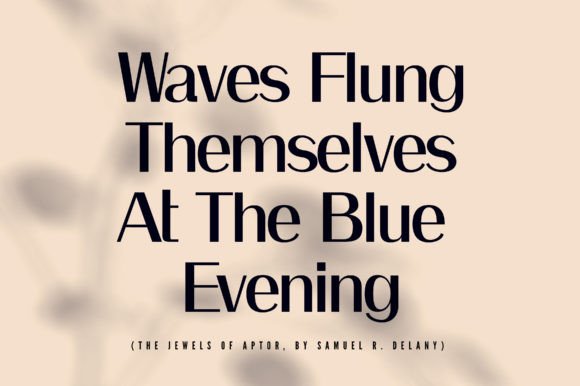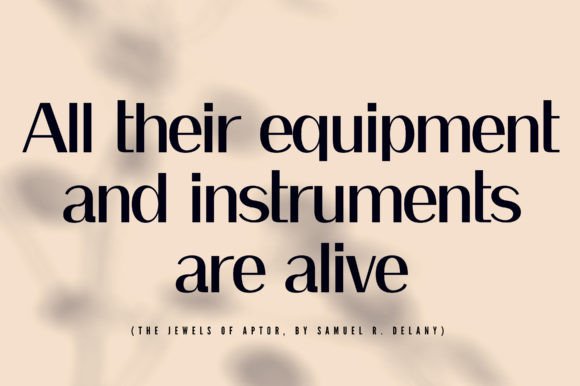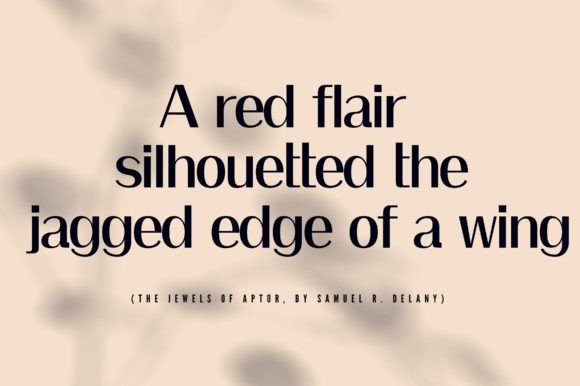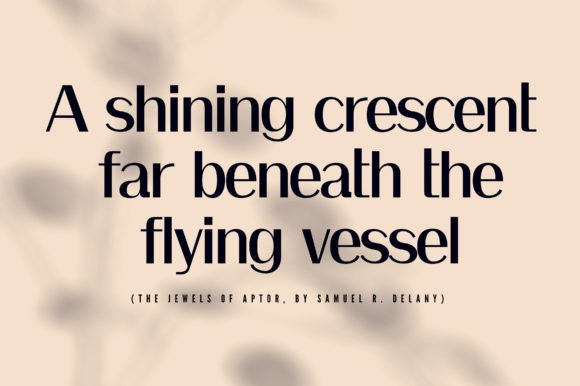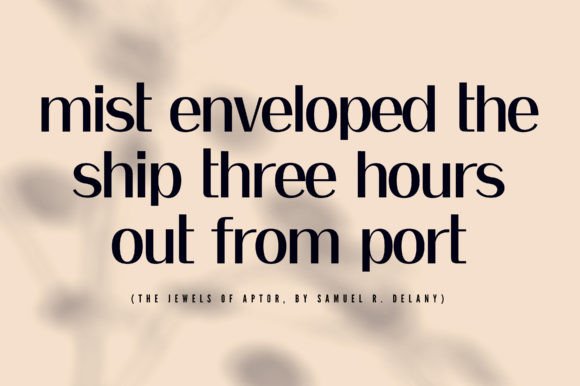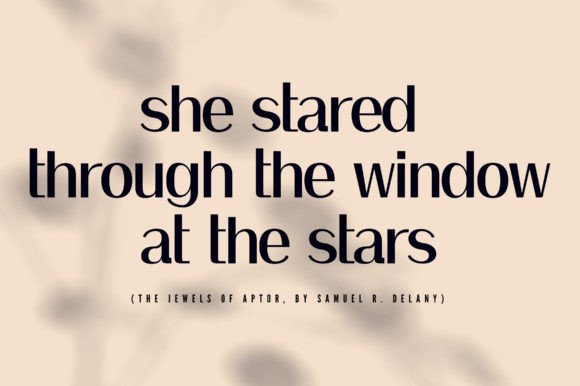
Introducing Camila: The Epitome of Chic, Elegance, and Minimalism in Typography
In the world of typography, few fonts have managed to capture the essence of sophistication and elegance as effortlessly as Camila. This stunning sans-serif font has been meticulously crafted to embody a sense of refined sophistication that is sure to elevate any design project. With its clean lines, simple yet elegant shapes, and attention to detail, Camila is the perfect choice for designers, artists, and creatives alike.
A Font with Endless Creative Possibilities
One of the standout features of Camila is its extensive range of glyphs. With over 604 beautifully designed glyphs, this font offers a wide range of creative possibilities, making it an ideal choice for designers who want to add a touch of elegance and sophistication to their work. Whether you’re creating a logo, a brochure, or a website, Camila has the versatility to adapt to any design style or theme.
Multi-Lingual Support for Global Designers
Camila is designed with versatility in mind, which is why it offers multi-lingual support. Whether you’re creating designs in English, Spanish, French, or any other language, Camila will seamlessly integrate into your project and add a touch of elegance and sophistication that is hard to match. This feature makes Camila an excellent choice for designers who work with clients from diverse linguistic and cultural backgrounds.
The Beauty of Minimalism
The minimalist design of Camila is what truly sets it apart. Every letter has been carefully crafted with the utmost attention to detail, resulting in a font that is both beautiful and functional. The clean lines and simple yet elegant shapes make it perfect for a wide range of applications, from branding and advertising to packaging and digital media.
Why Choose Camila?
So, why choose Camila over other fonts? Here are just a few reasons:
- Unique and distinctive design: Camila’s minimalist design makes it stand out from other fonts, ensuring that your designs will be instantly recognizable.
- Versatility: With multi-lingual support and over 604 glyphs, Camila can be used for a wide range of design projects.
- Elegance and sophistication: Camila adds a touch of refinement and luxury to any design, making it perfect for high-end brands and creatives.
- Easy to read: The clean lines and simple shapes of Camila make it easy to read, even at small font sizes.
How to Use Camila in Your Designs
Using Camila in your designs is easy. Here are a few tips to get you started:
- Pair it with bold fonts: Camila’s minimalist design makes it a great choice for pairing with bold fonts to create visual interest.
- Experiment with font sizes: Camila’s clean lines and simple shapes make it easy to use at a range of font sizes, from headings to body text.
- Add a pop of color: Camila’s neutral design makes it easy to add a pop of color to your designs and make them stand out.
In conclusion, Camila is a stunning sans-serif font that embodies the essence of chic, elegance, and minimalism. With its extensive range of glyphs, multi-lingual support, and attention to detail, Camila is the perfect choice for designers, artists, and creatives alike. Whether you’re creating a logo, a brochure, or a website, Camila is sure to elevate your design project and add a touch of sophistication and elegance that is hard to match.